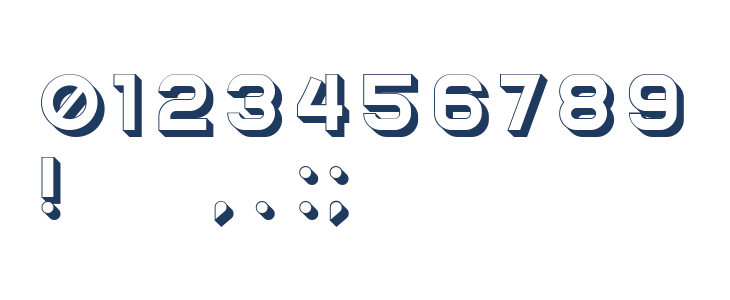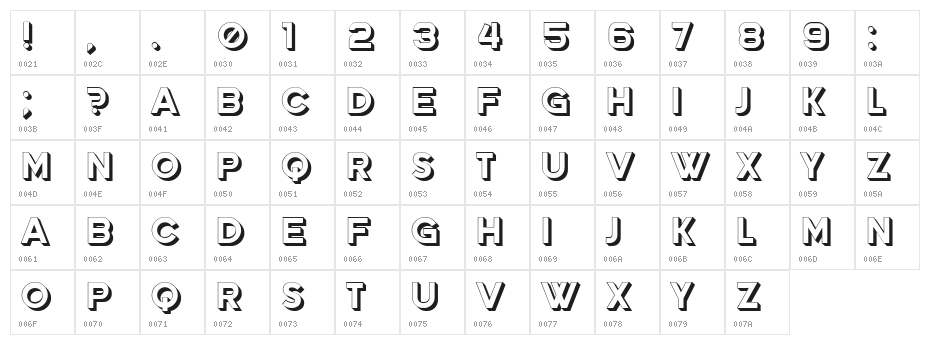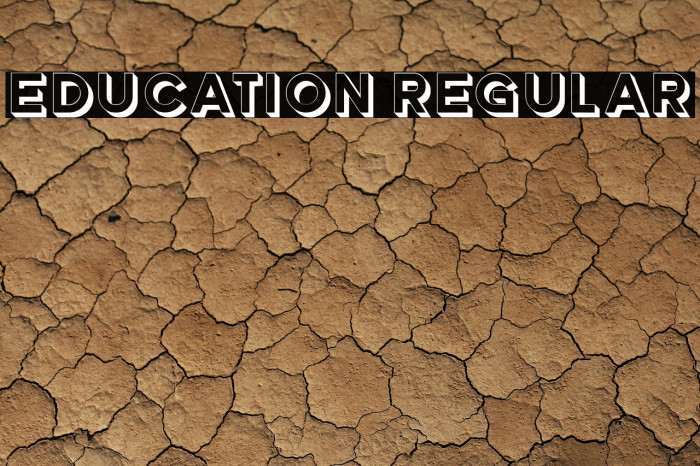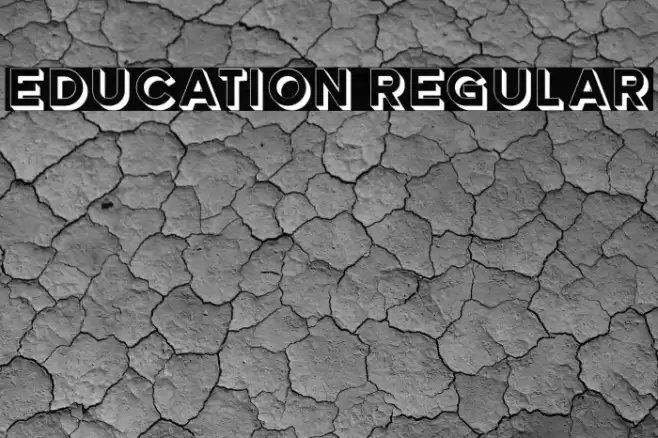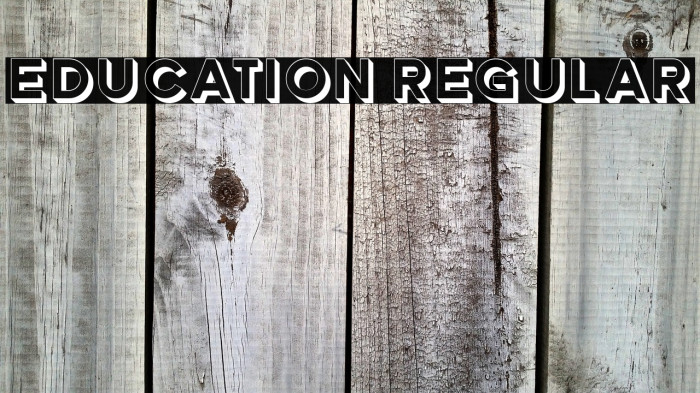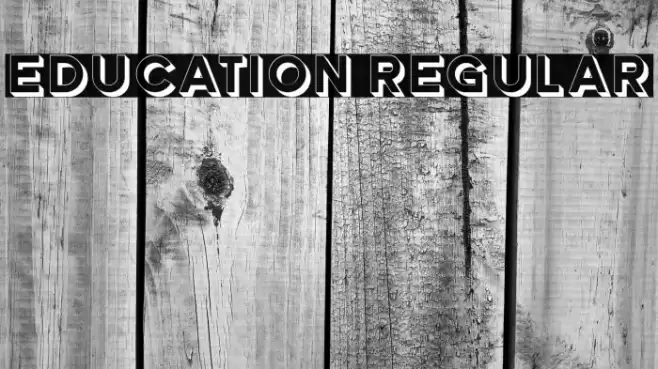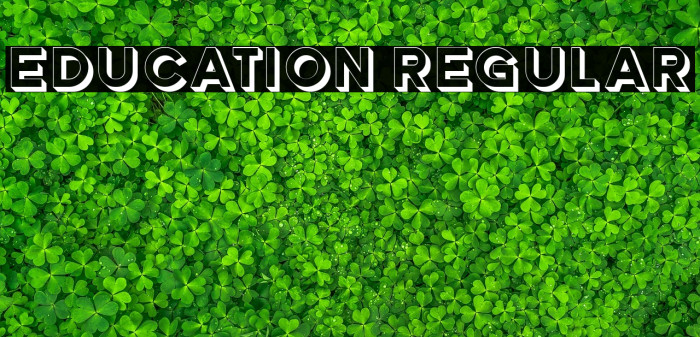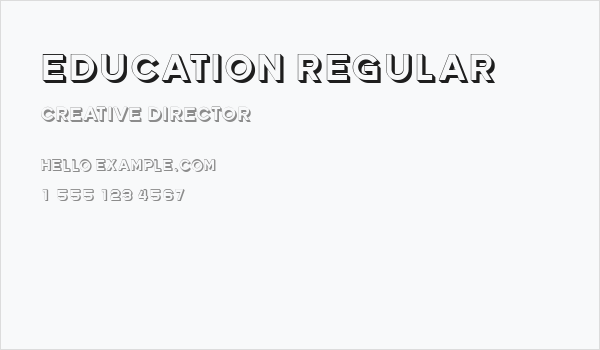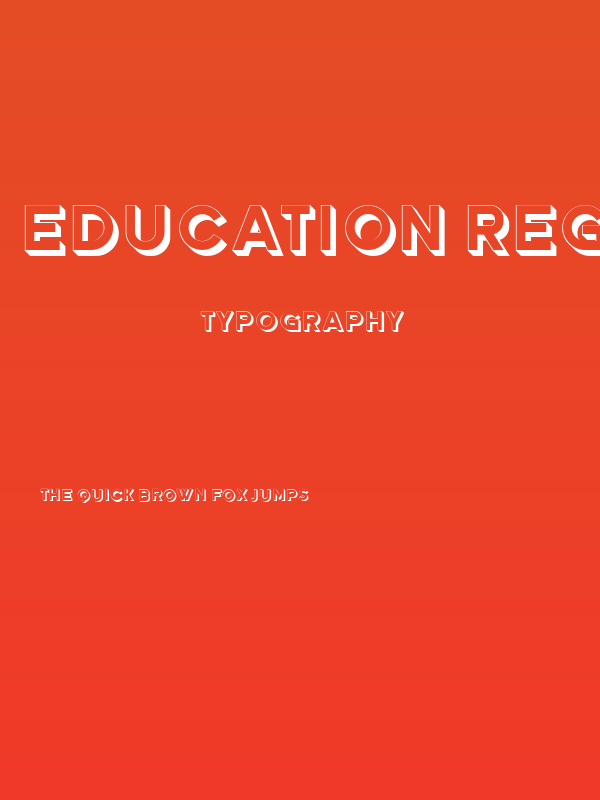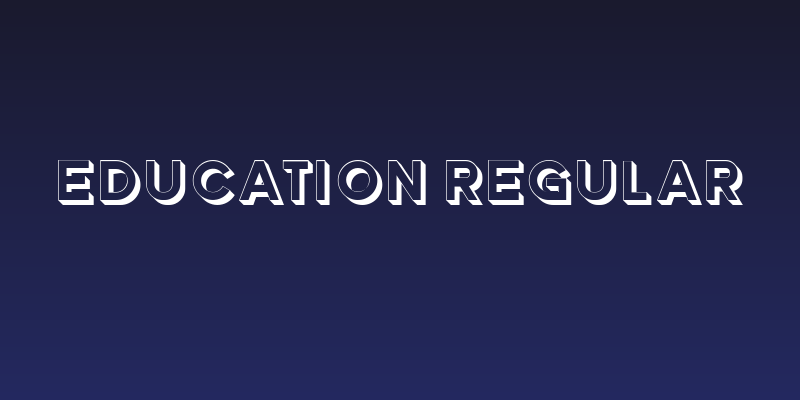
Education Regular Font
Education Regular Description
This font features a bold, geometric style with a three-dimensional effect, created by a shadow that gives depth to each character. The uppercase letters are strong and impactful, making them ideal for attention-grabbing headlines. The numbers and special characters maintain the same bold and structured design, ensuring consistency across all elements. The font's clean lines and modern aesthetic make it versatile for various design projects. Its distinct shadow effect adds a unique touch, setting it apart from more traditional sans-serif fonts.
| Proposed Projects | Ideal for posters, logos, branding materials, and any project requiring a modern, eye-catching typeface. |